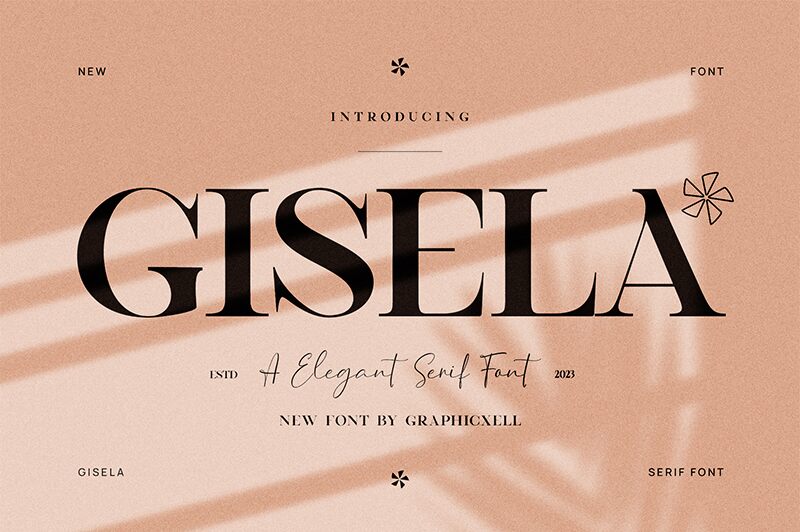
Gisela font by Graphicxell is an elegant free serif font that exudes sophistication and modernity. Inspired by classic influences, it achieves a refined, professional, and stylish look suitable for many design purposes. This luxurious typeface features a timeless design that immediately catches attention. Its beautiful shapes carry a light flow, a mix of softness with toughness, and a friendly yet powerful appearance.
Gisela is suitable for posters, flyers, brochure designs, invitations, wedding cards, and even sophisticated stationery. In digital environments, use it to form a majestic brand name in a logo or mark your headers within blogs, websites, or games. It would also greatly enrich your social media communication and advertisements.